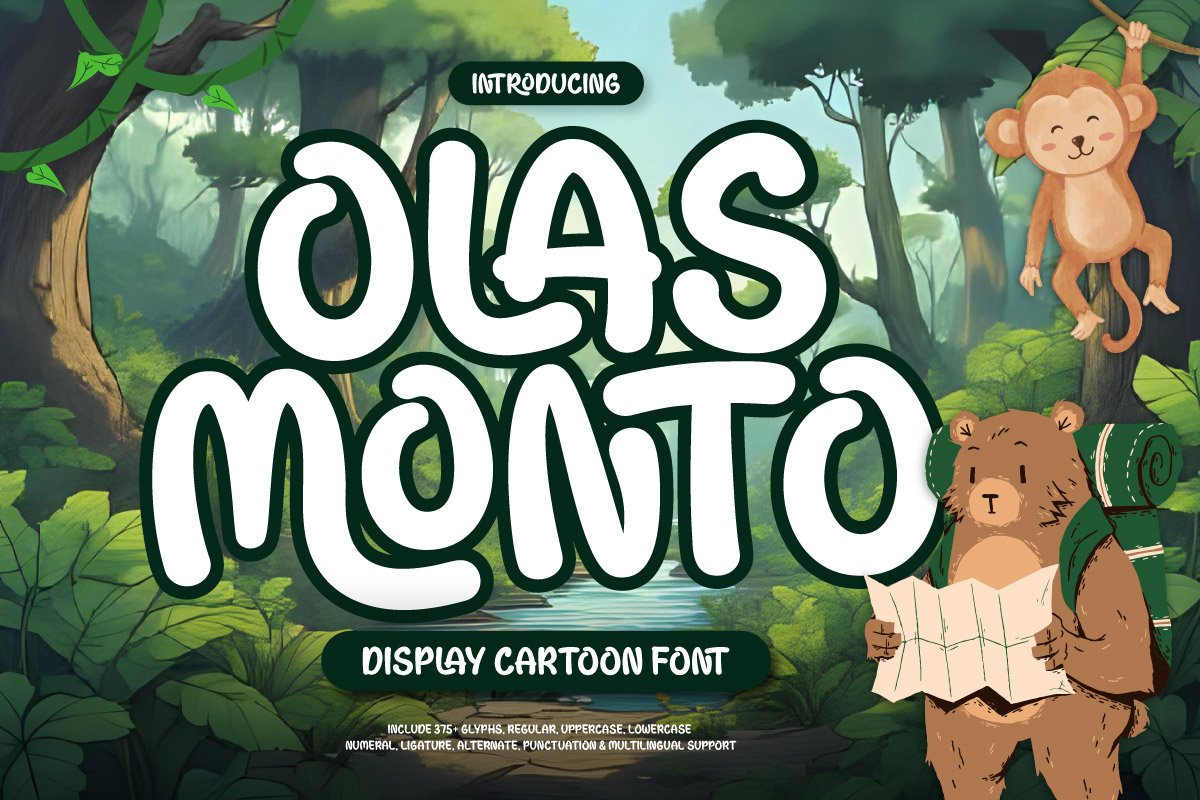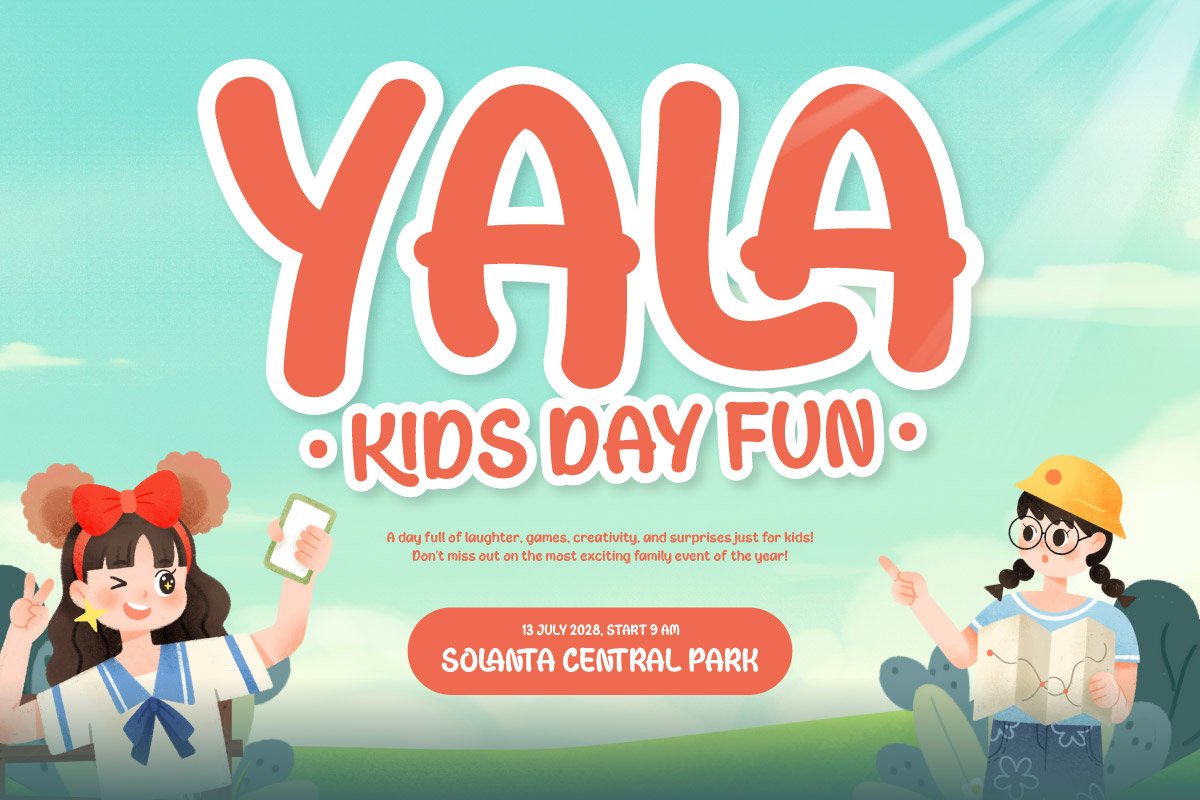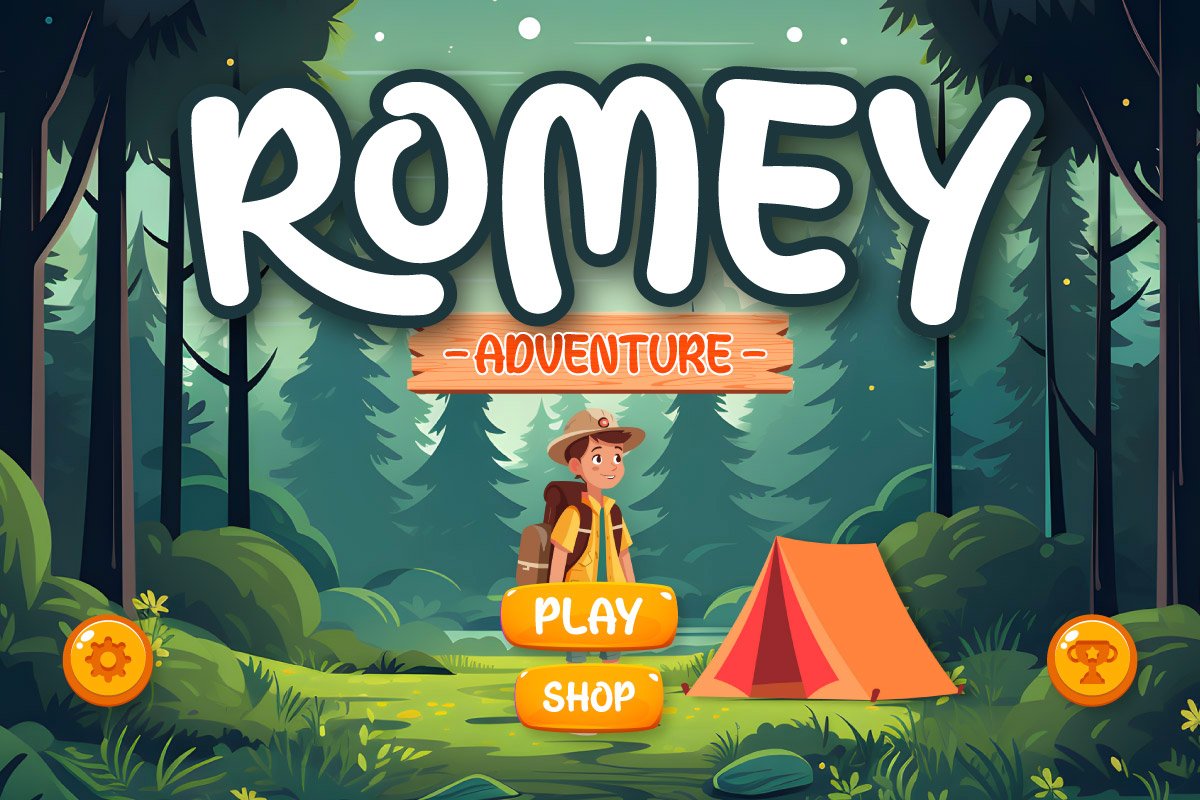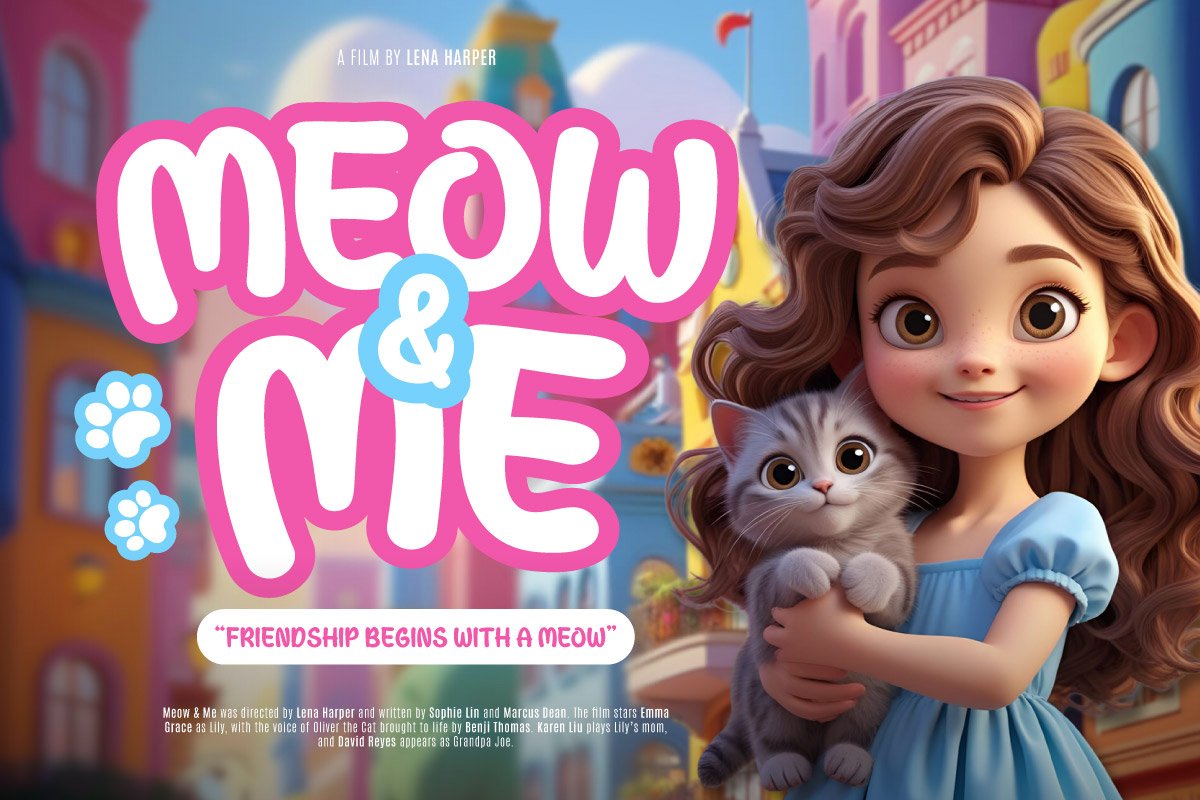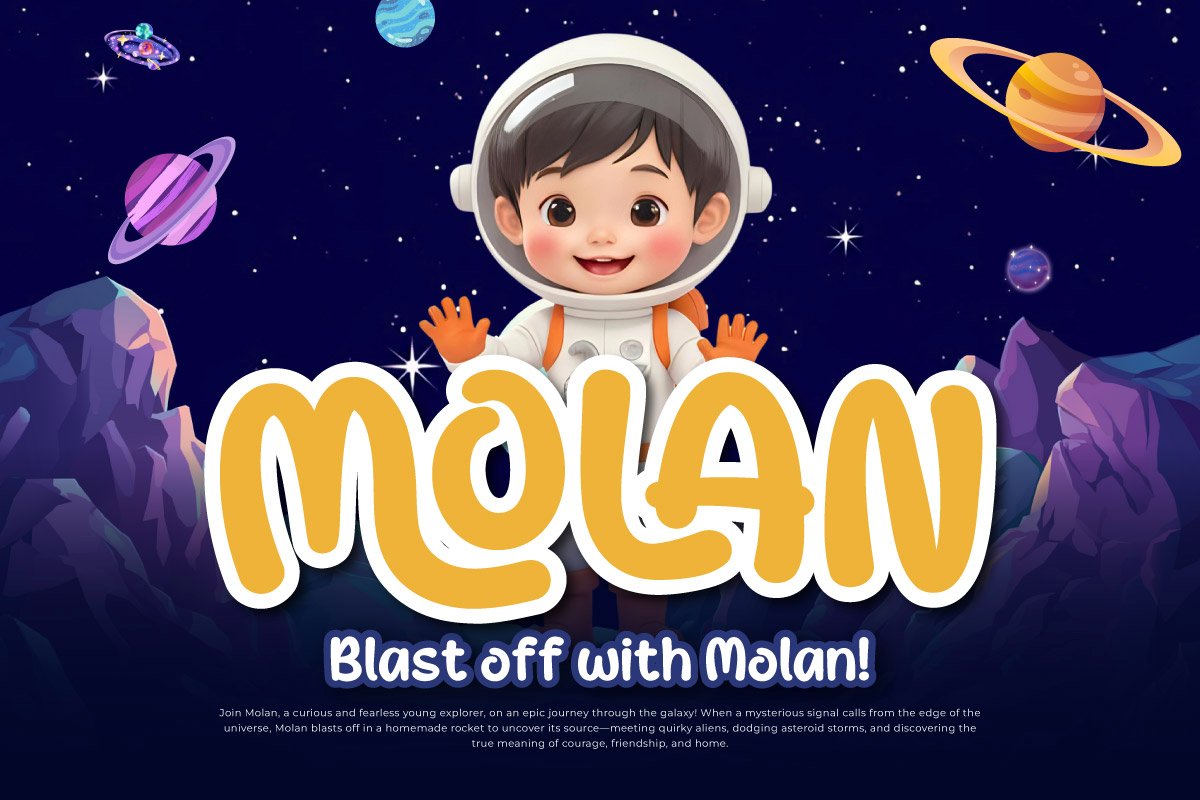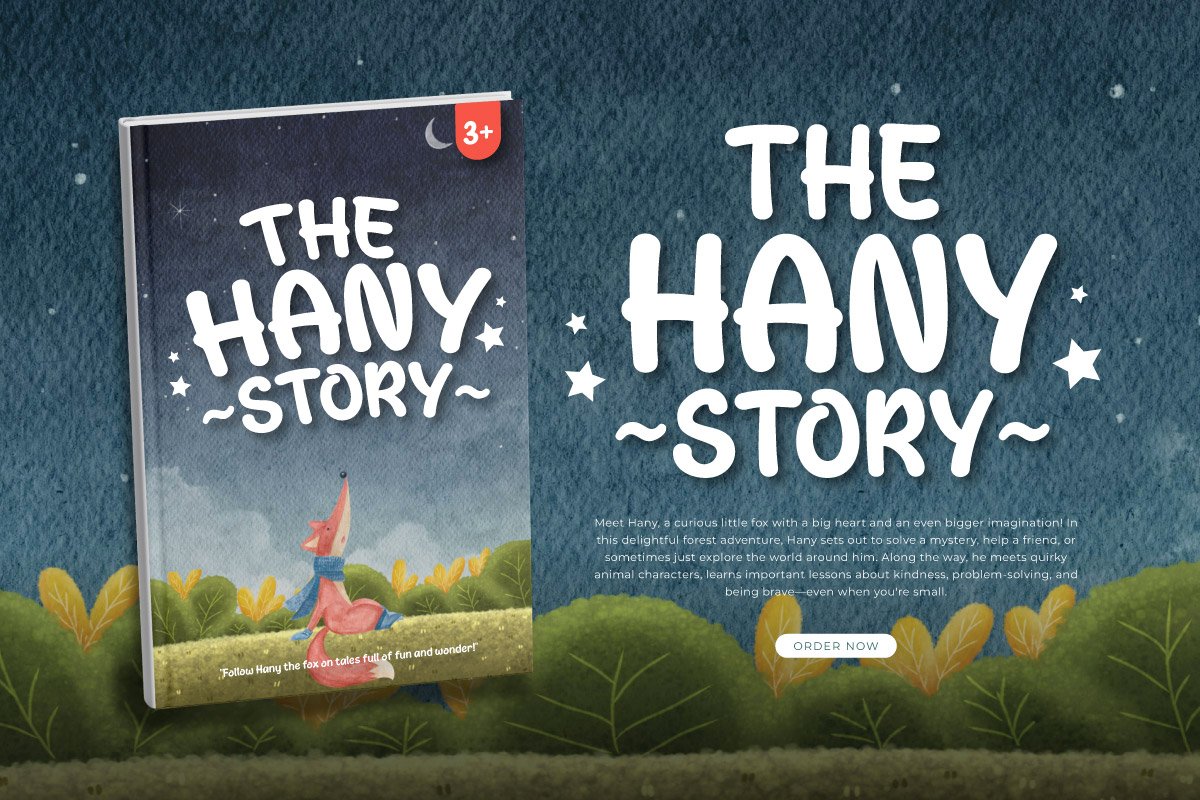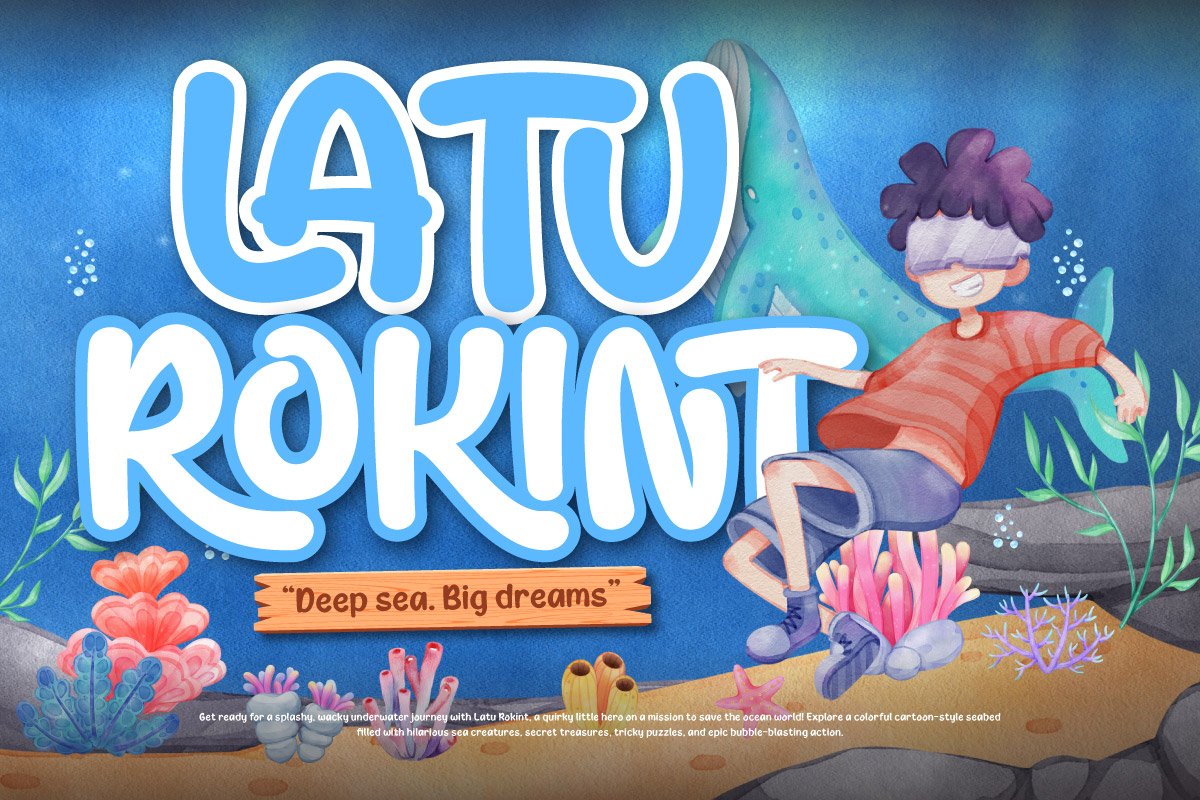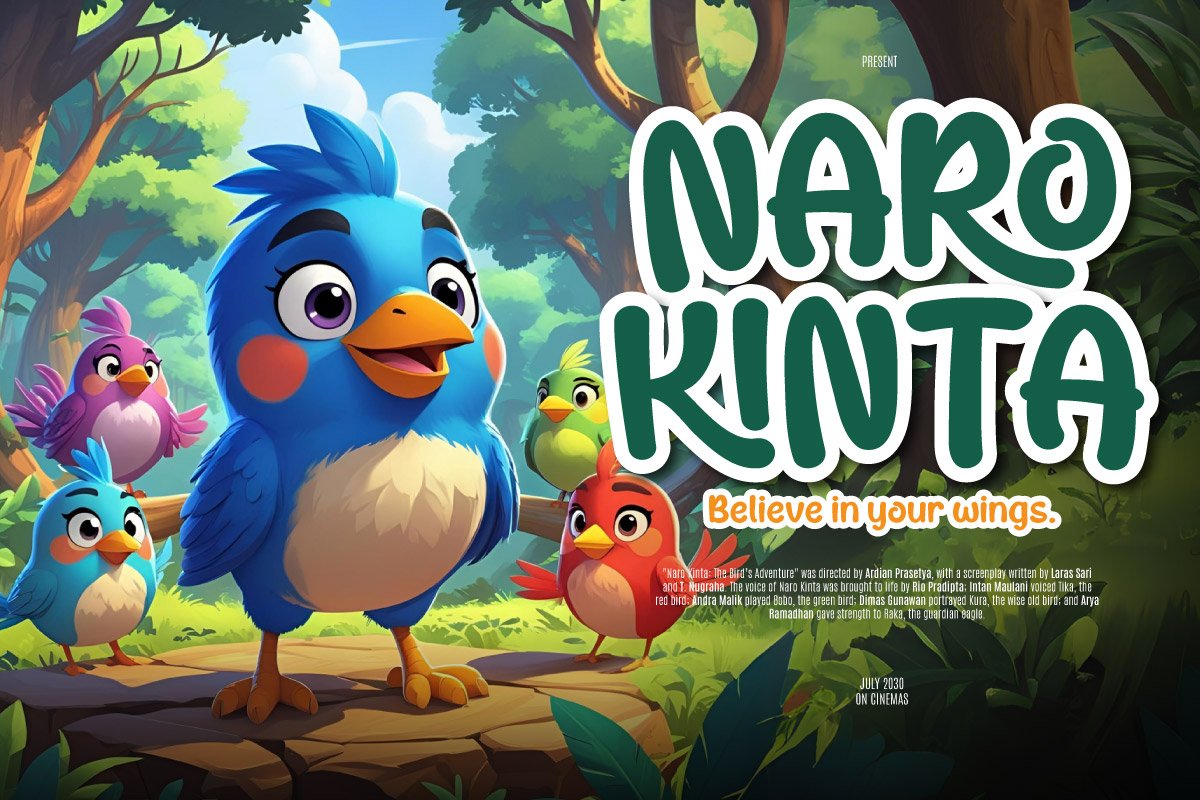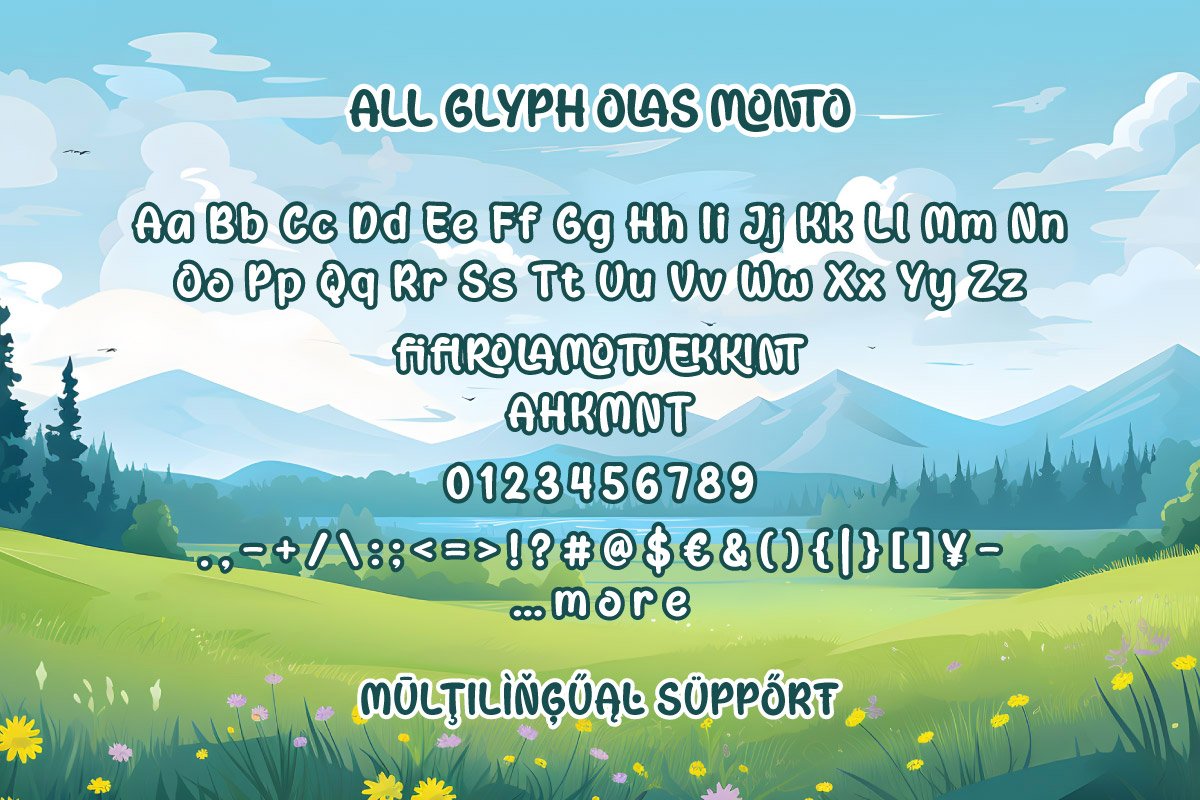
Olas Monto – Cartoon Display Font
Olas Monto is a joyful and expressive cartoon display font crafted to bring fun and character into your designs. Featuring two charming styles—Regular and Outline—this font is perfect for children’s storybooks, animated titles, comic-inspired branding, birthday invitations, educational materials, and colorful packaging.
The Regular version offers a bold, chunky look that’s full of personality and highly readable, while the Outline style adds creative flexibility for layering, coloring, or adding playful effects. Every curve in Olas Monto is designed to feel friendly, imaginative, and energetic.
Whether you’re working on kid-focused content or playful commercial projects, Olas Monto adds a burst of cartoon spirit and charm that stands out in any setting.